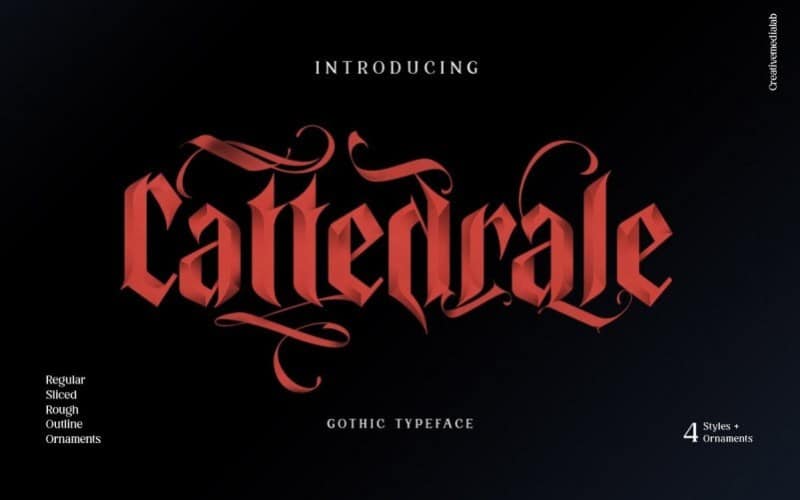
Introducing Cattedrale Gothic Blackletter Font, unique gothic blackletter for your design. Includes 4 styles plus ornaments.
Perfect for tattoos clothing, labels and packaging, branding, or any Gothic-themed projects!